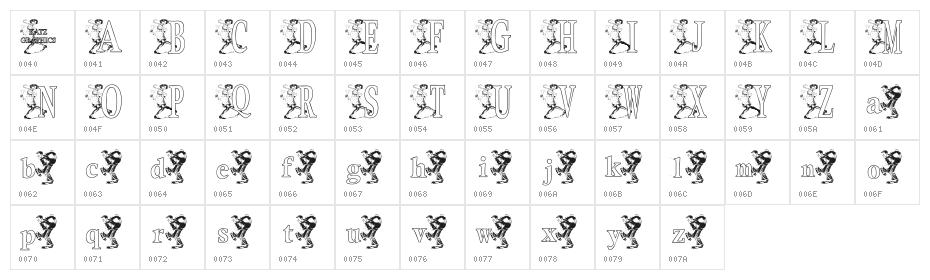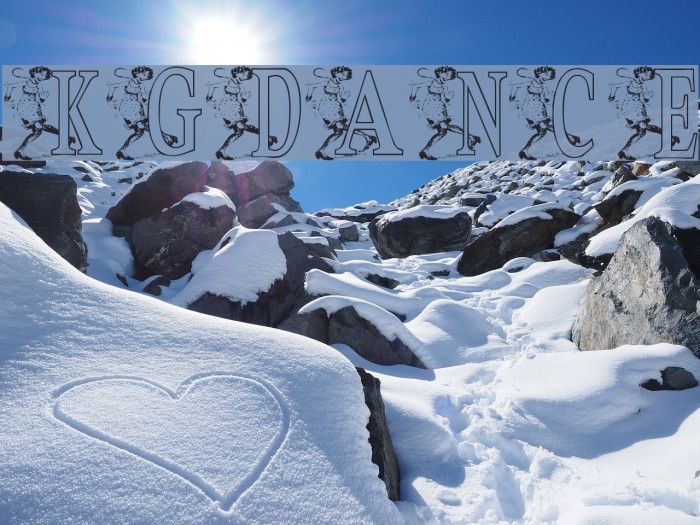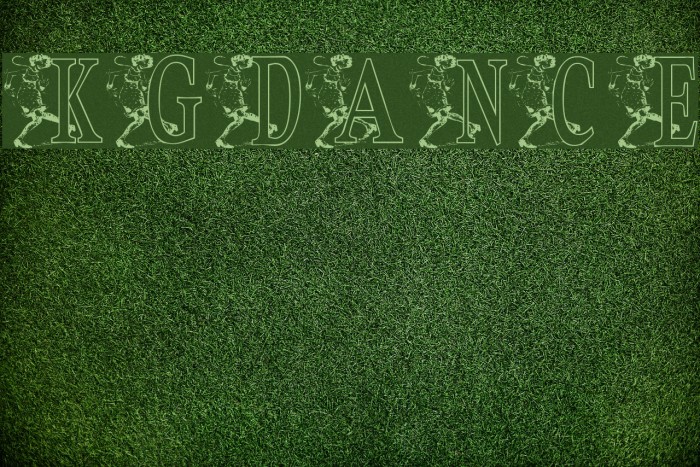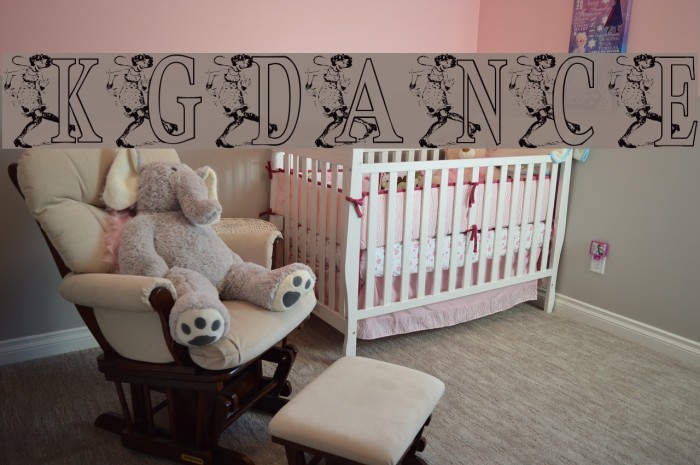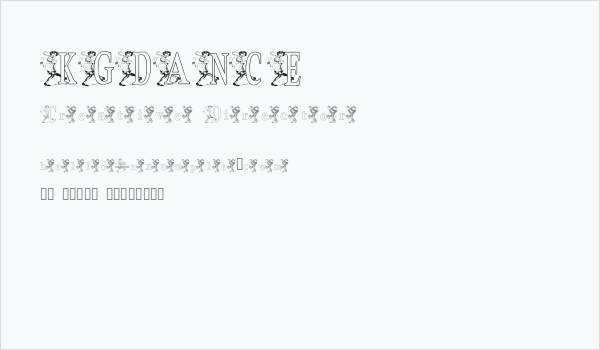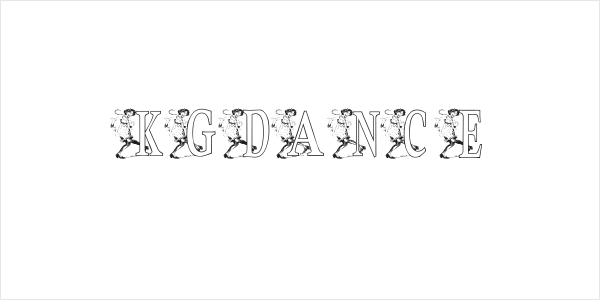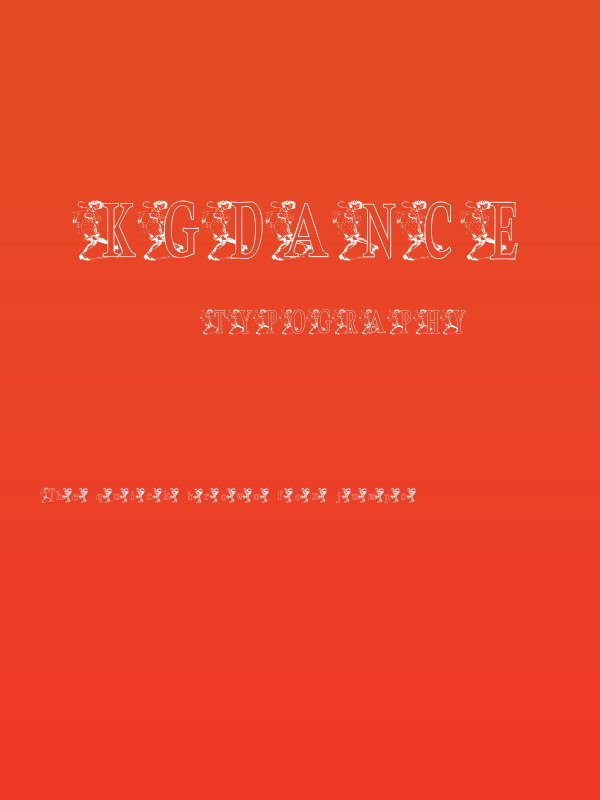
KGDANCE Font
KGDANCE Description
This font features a whimsical and playful design where each letter is accompanied by a dancing figure, creating a lively and animated appearance. The uppercase and lowercase letters are distinct, with the uppercase letters having a more pronounced outline. The dancing figures add a unique decorative element that makes the font stand out. The absence of numbers and special characters suggests a focus on artistic expression rather than practicality. This font is ideal for projects that require a fun and engaging visual style.
| Overall Style | Whimsical |
| Use Case | Headlines, Decorative text |
| Proposed Projects | Ideal for children's books, party invitations, playful branding, and creative posters. |